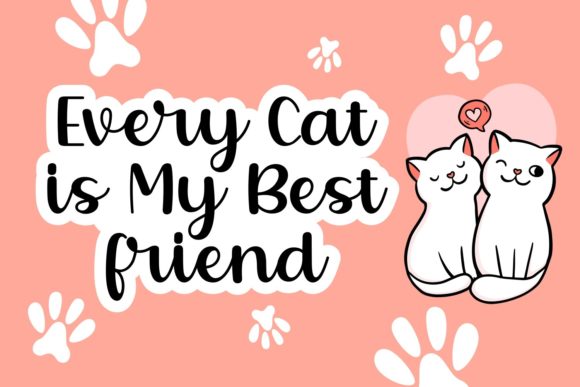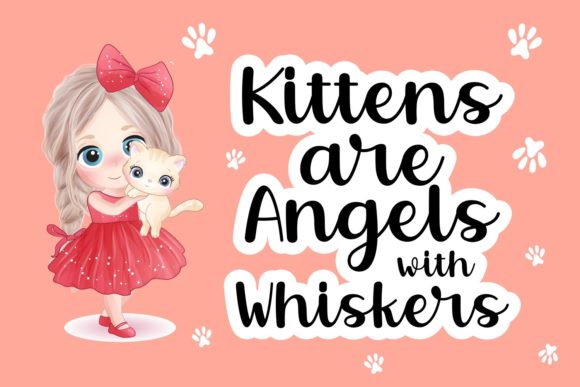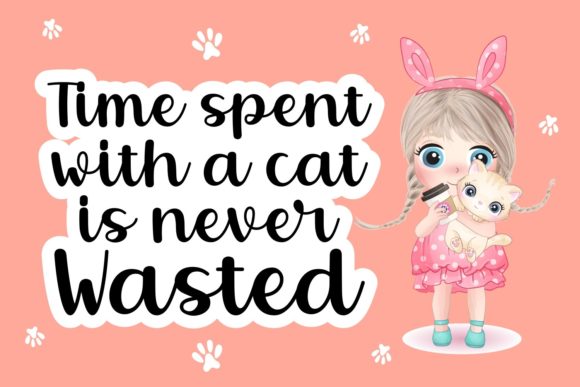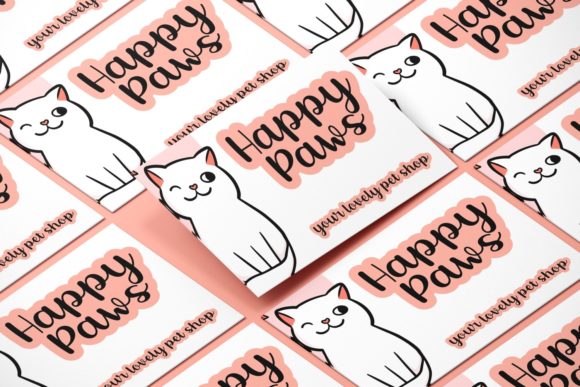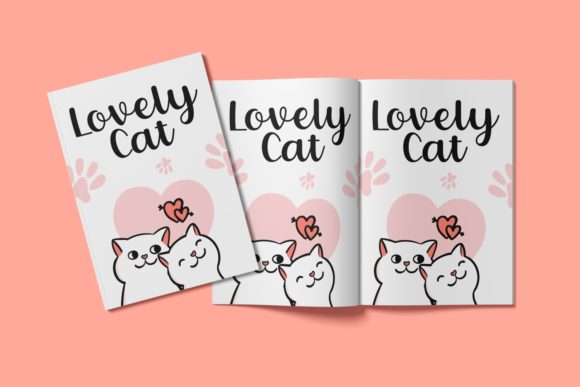
About Cute Katty Font
Cute Katty is a sweet, delicate and well balanced handwritten font. This font exudes joy and it will instantly brighten up any creation.